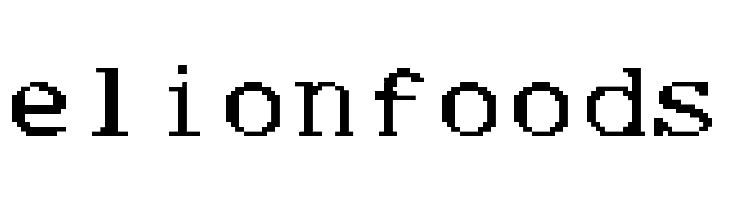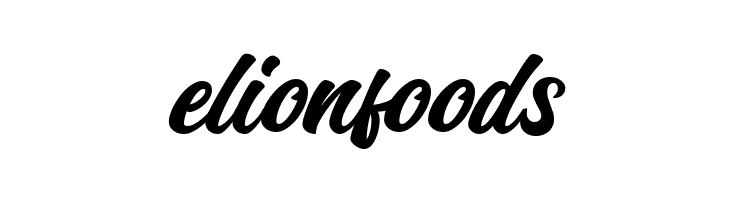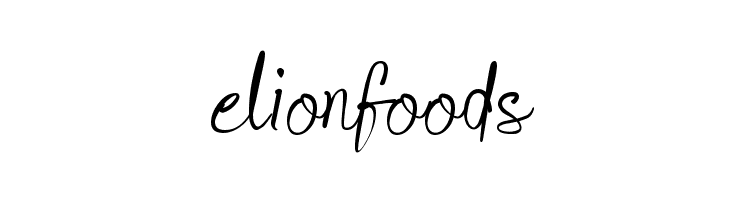
An elegant, flowing script font with smooth, cursive strokes.
A classic serif font with a vintage touch, featuring sharp serifs and balanced letterforms.
A sophisticated script font with flowing, high-contrast strokes.
A bold, flowing script font with elegant curves and ornate details.
A graceful and flowing script font with elegant cursive letterforms.
A playful, handwritten font with fluid, dynamic strokes and a whimsical charm.
A modern, handwritten font with elegant, flowing characters.
A bold, expressive handwritten font with dynamic strokes and a playful vibe.
A bold, expressive handwritten font with playful curves.
A lively and expressive handwritten font with playful, cursive strokes.